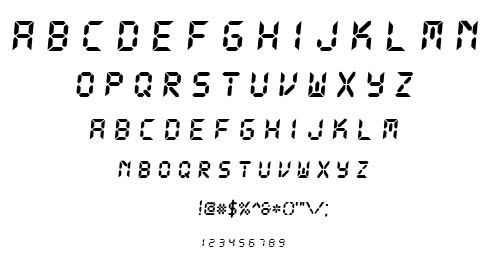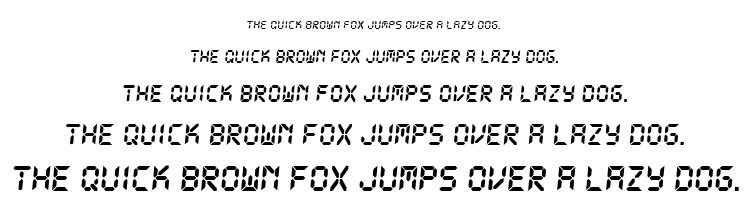
Check out your clock. 7:30. 🙁
Well, let’s type like your clock with this font. Inspired by the one in my bedroom? Yes, a bit, but it’s simply a nice digi font to use for your titles. Enjoy!